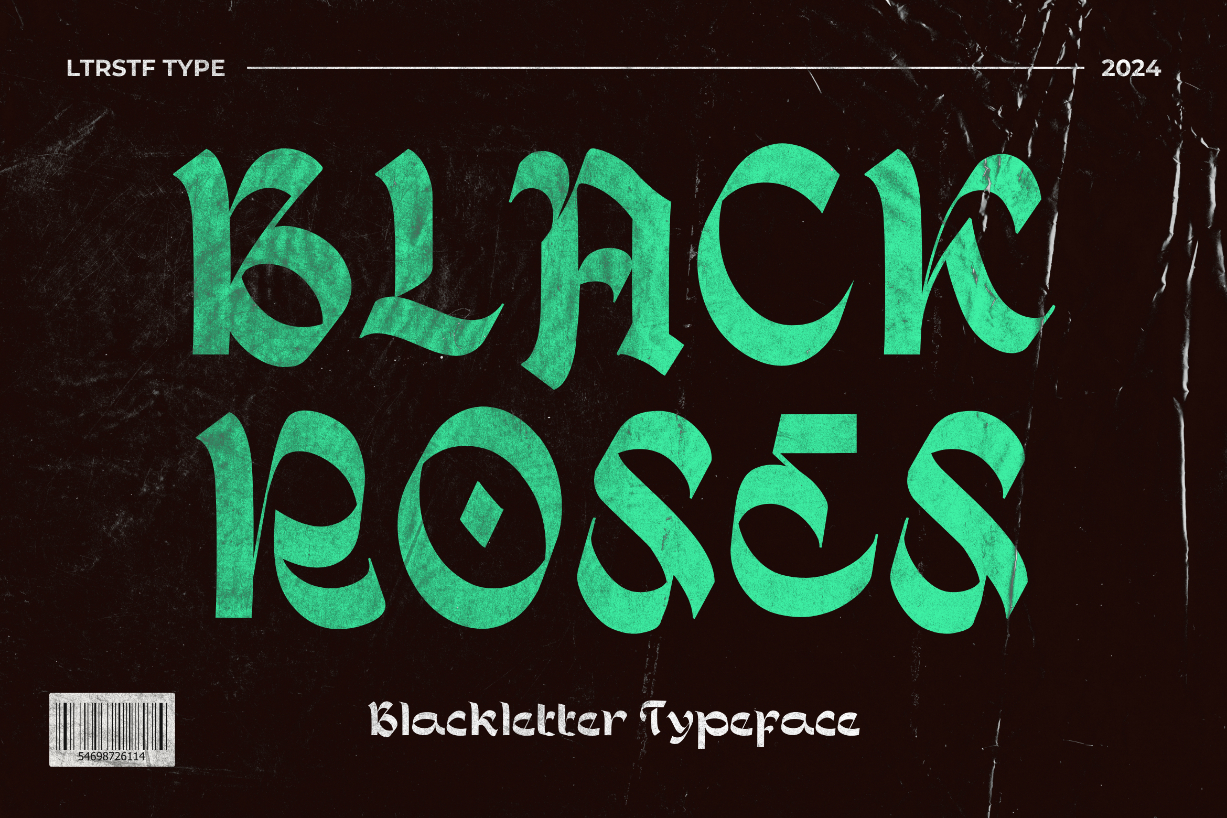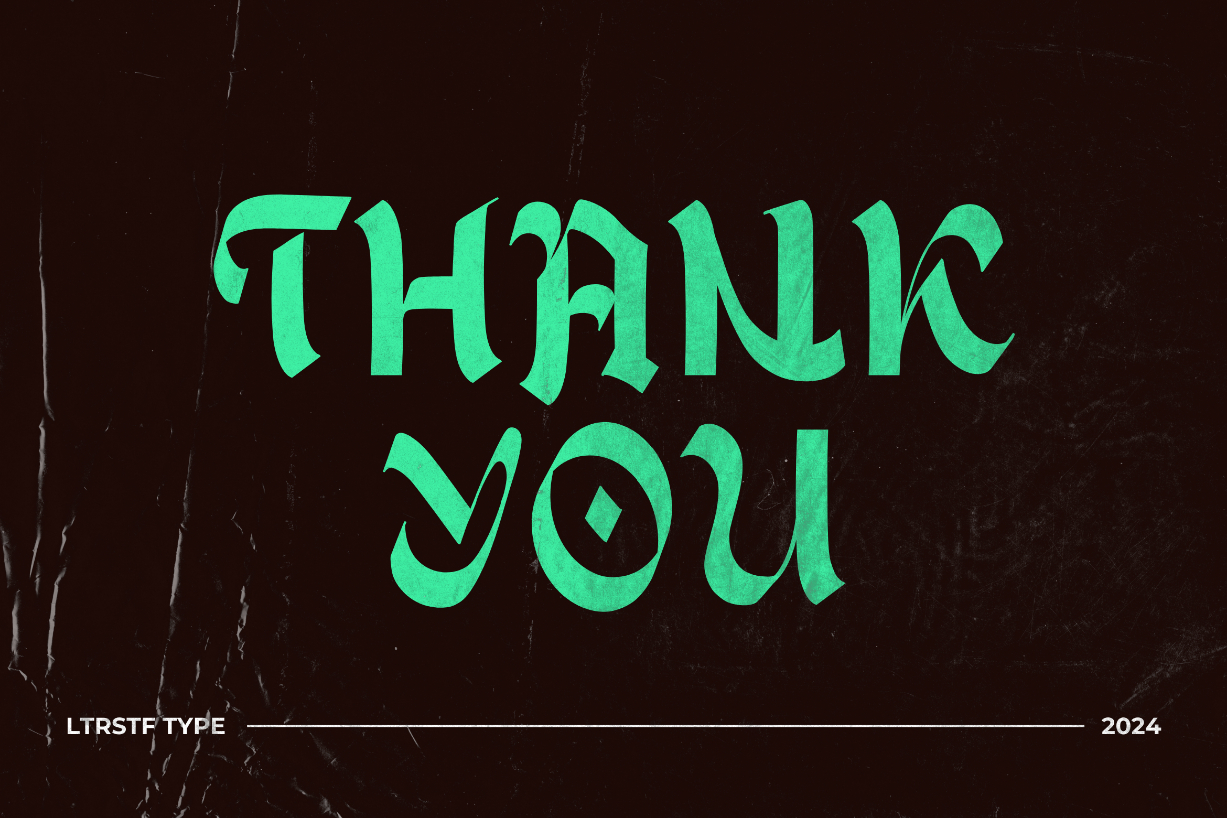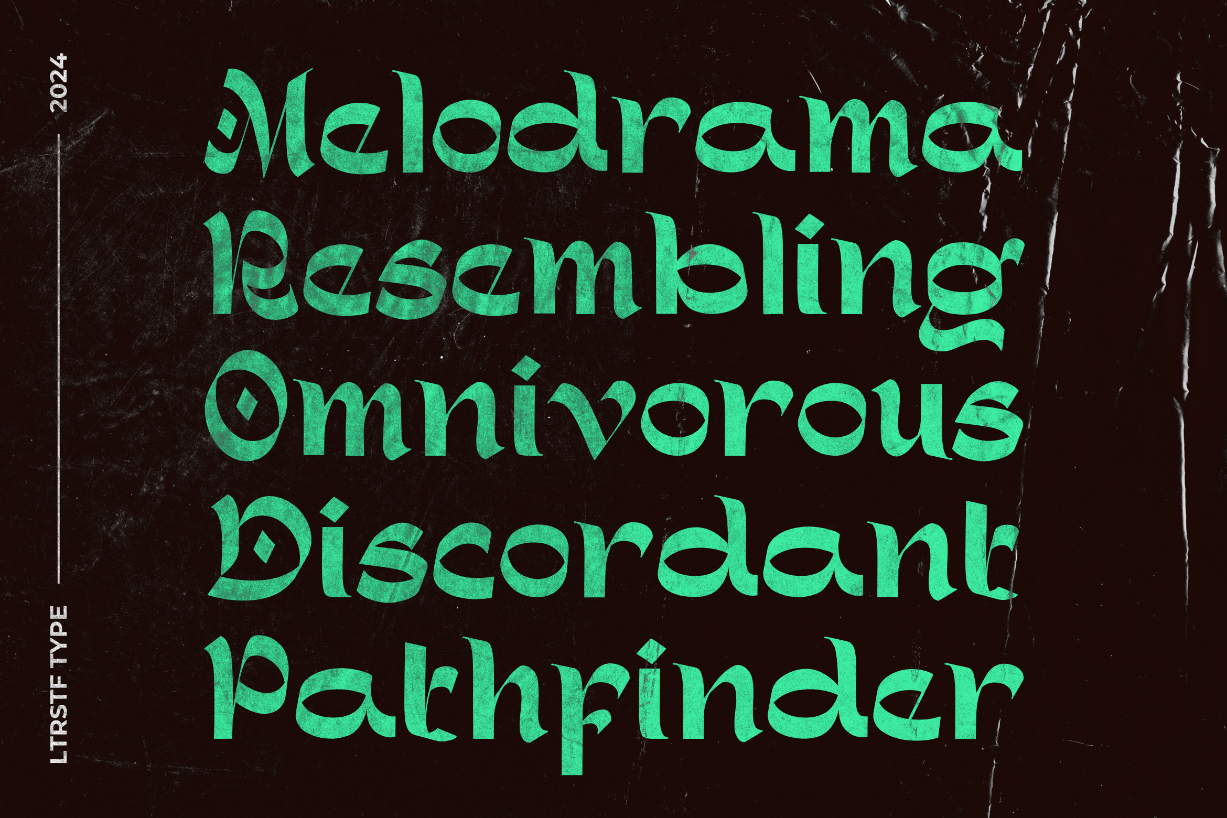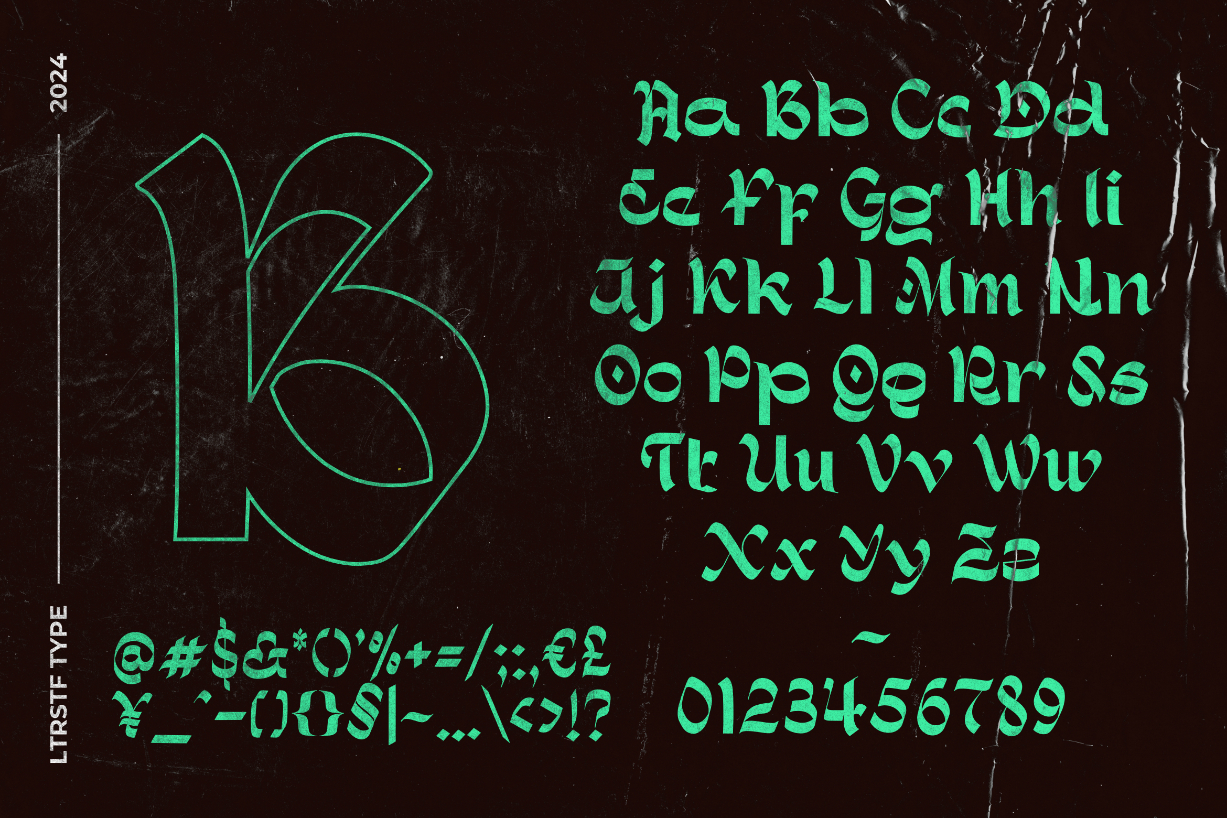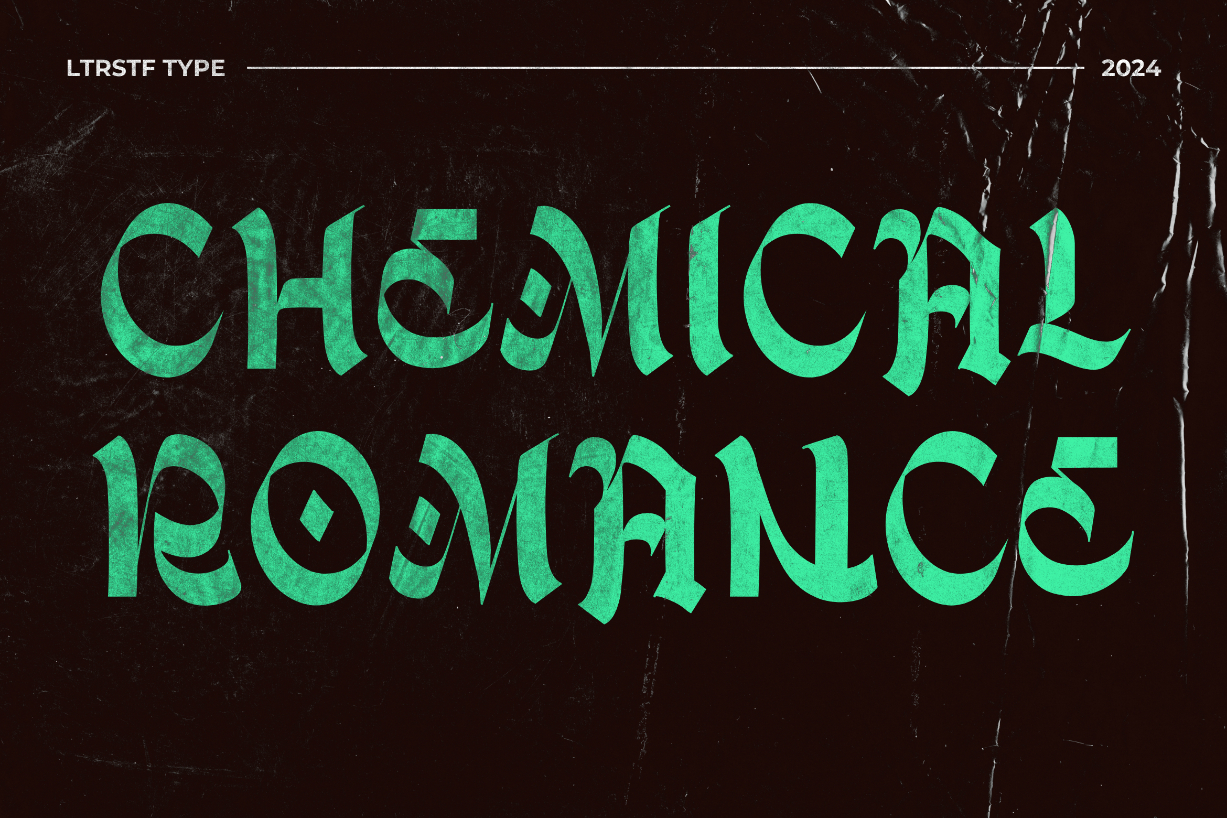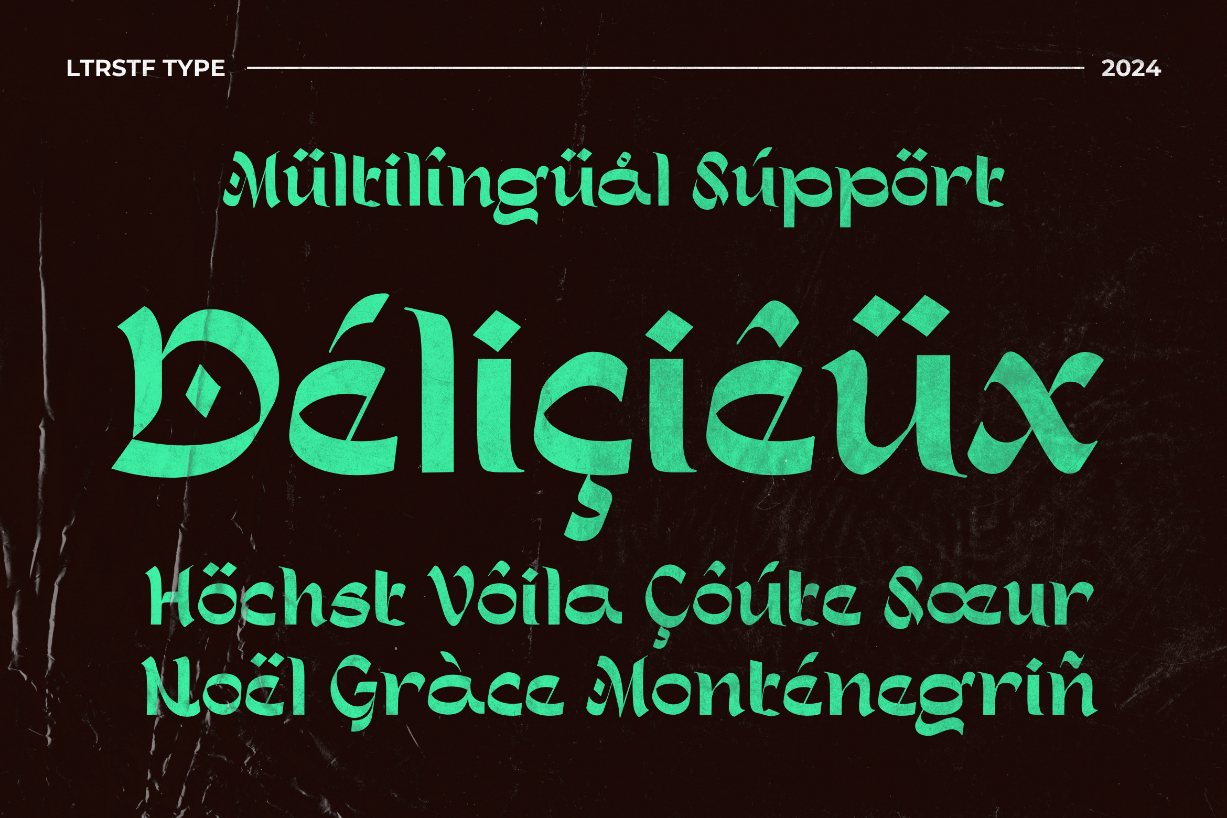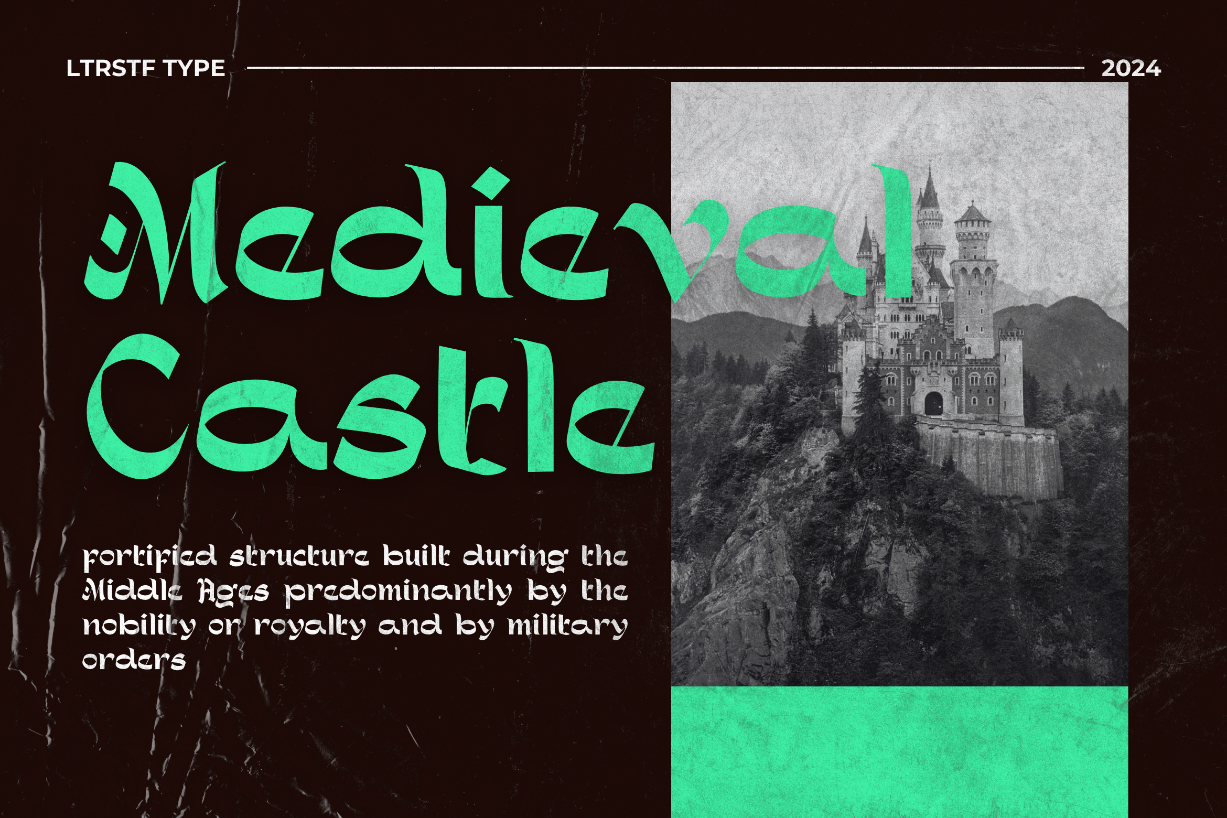
Blackroses Font
About Blackroses Font
Introducing “BLACKROSES Font” – where elegance meets edge. This blackletter-inspired digital gem combines beauty with sharp lines for a striking effect. Perfect for logos, headlines, and branding, BLACKROSES Font also supports multilingual characters, ensuring your message resonates globally.